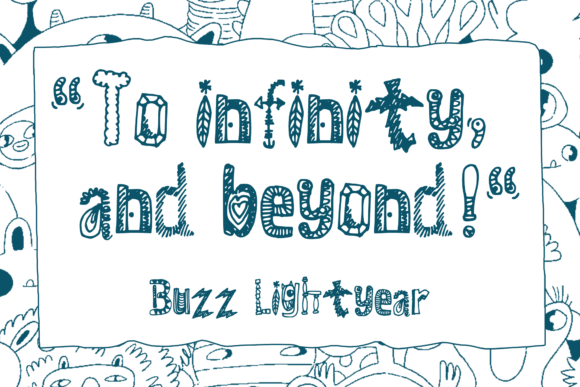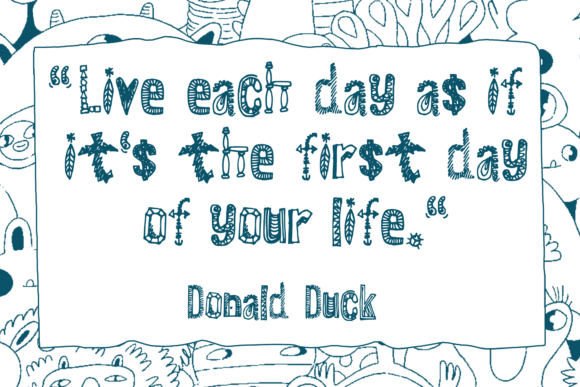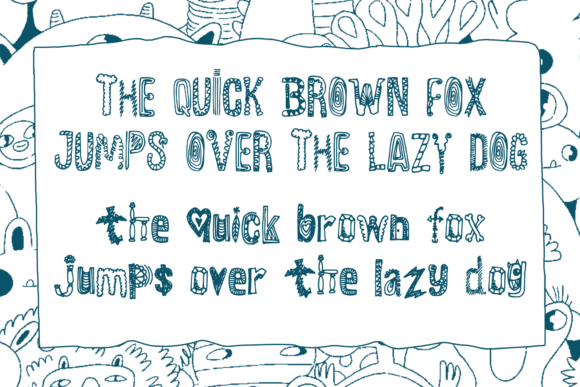
Introduction to Mr. Doodle Font
Who hasn’t found themselves doodling in the margins of a notebook or on a piece of paper as a kid? It’s a universal language of creativity, and one that can bring joy to both the creator and the viewer. For designers looking for a way to add a touch of whimsy and playfulness to their projects, the Mr. Doodle Font is a valuable resource. This kid-friendly handwritten doodle font is perfect for creating designs that are both fun and engaging.
With its incredibly versatile style, the Mr. Doodle Font can be used for a wide range of projects, from t-shirts and kids’ book designs to greeting cards, stickers, and posters. And the best part? It’s free to download, making it an accessible design resource for designers of all levels. Whether you’re working on a high-quality commercial project or a personal creative project, the Mr. Doodle Font is sure to bring a smile to the faces of your audience.
Key Features of Mr. Doodle Font
- Unique hand-drawn design with intricate details, making it a great resource for creative projects.
- Transparency feature allows for seamless integration with various backgrounds, providing a clean and professional look.
- Perfect for designers and artists working on creative projects, such as graphic design, illustrations, and digital art.
Honest Review: Mr. Doodle Font
I recently stumbled upon the Mr. Doodle Font and I must say, it’s a fascinating addition to any design resource collection. This font is perfect for those creative projects that require a touch of whimsy and playfulness.
- What works well: ✨ The font’s unique and quirky design makes it stand out from more traditional fonts. It’s perfect for adding a bit of personality to your designs.
- What works well: ✨ The font comes with a transparent background, allowing for seamless integration with other design elements.
- ⚠️ The font may not be suitable for formal or professional projects, as its playful nature may not be taken seriously.
- ⚠️ The font’s uniqueness can sometimes make it difficult to read, especially in large blocks of text.
Overall, I think the Mr. Doodle Font is a high-quality design resource that can add a lot of creativity and personality to your projects. If you’re looking for a unique font to spice up your designs, I highly recommend giving it a try.
Common Use Cases for Mr. Doodle Font
The Mr. Doodle Font is ideal for creative projects such as graphic design, digital art, and typography. It is also perfect for use in social media, advertising, and marketing materials.